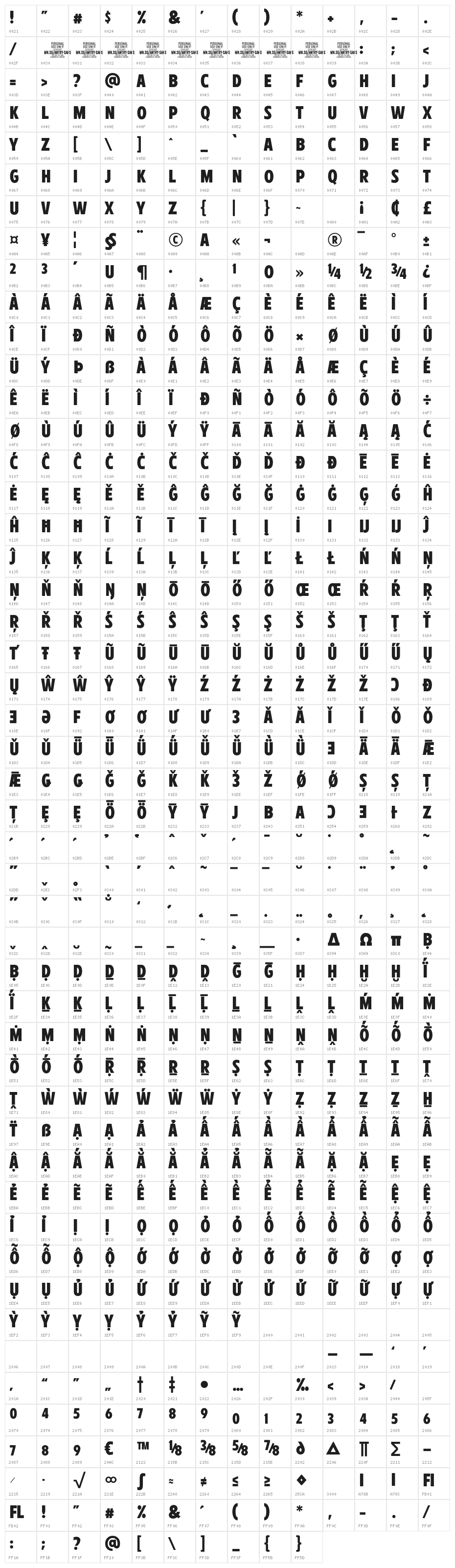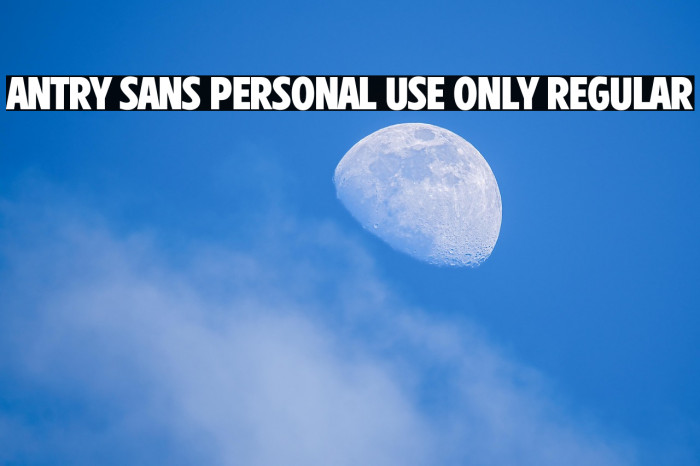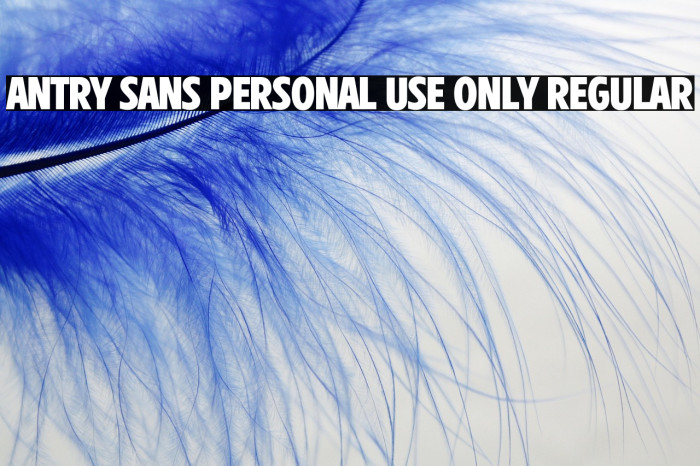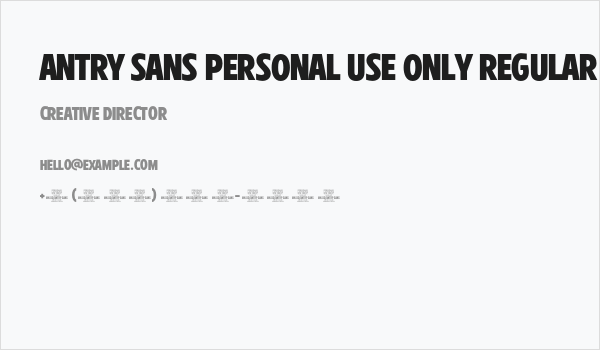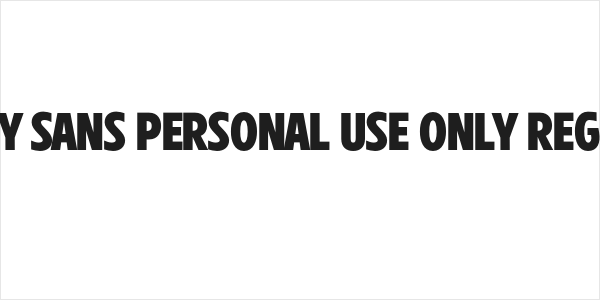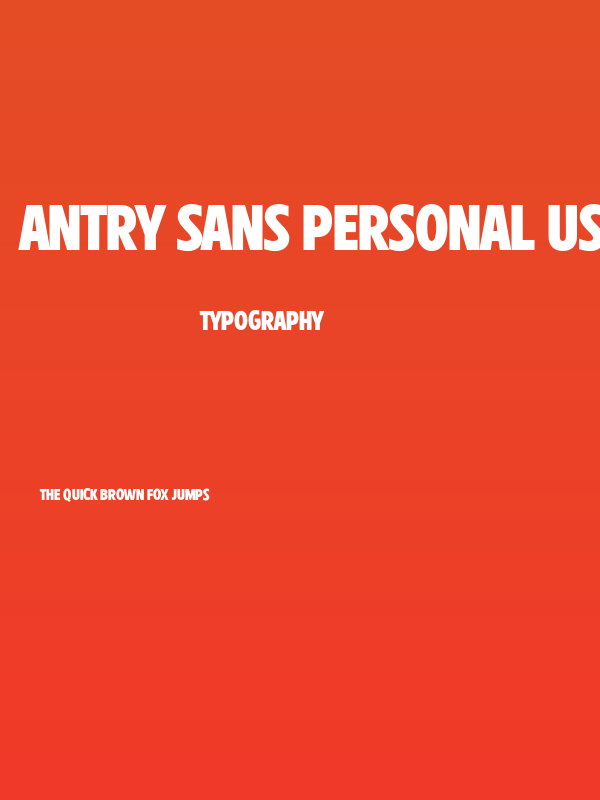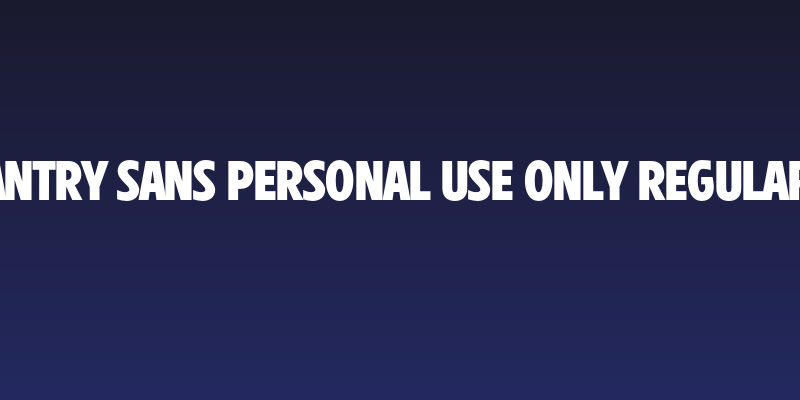
Antry Sans PERSONAL USE ONLY Regular Font
Antry Sans PERSONAL USE ONLY Regular Description
This font features bold, uppercase letters with a strong and impactful presence. The characters are wide and have a slightly condensed appearance, making them ideal for attention-grabbing headlines. The strokes are thick and consistent, providing a uniform look across all characters. The font includes a full set of uppercase letters, numbers, and a variety of special characters, ensuring versatility in design applications. Its boldness and clarity make it suitable for both digital and print media, where readability and impact are essential.